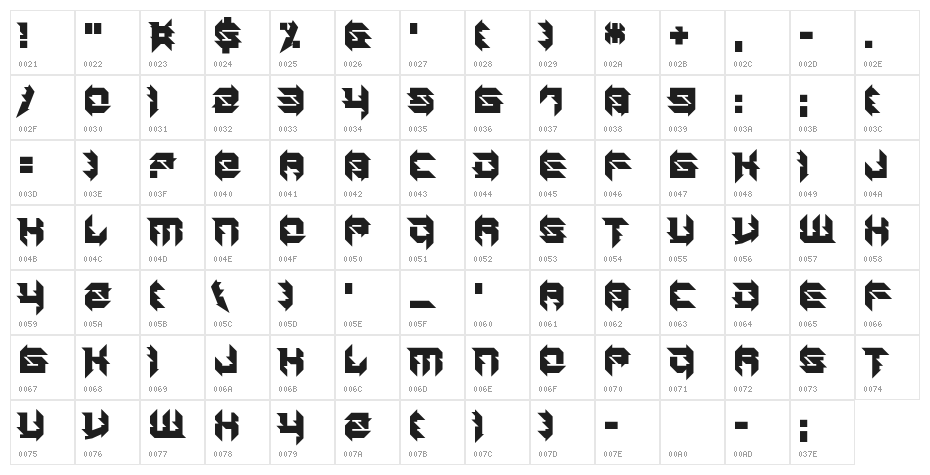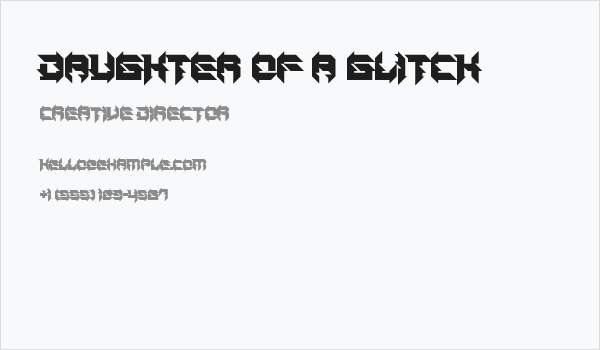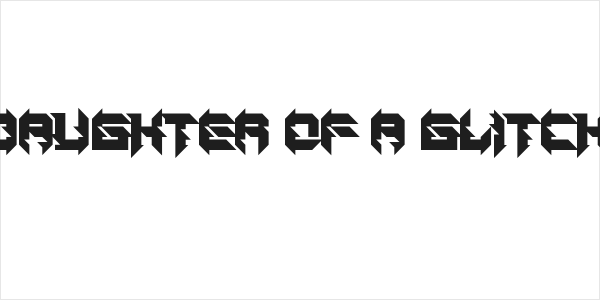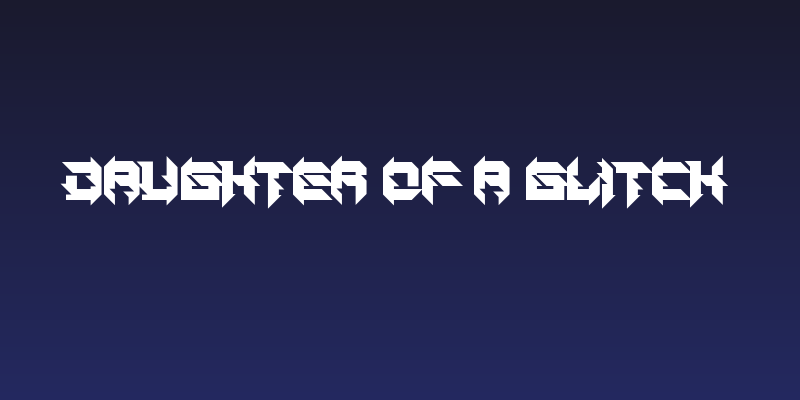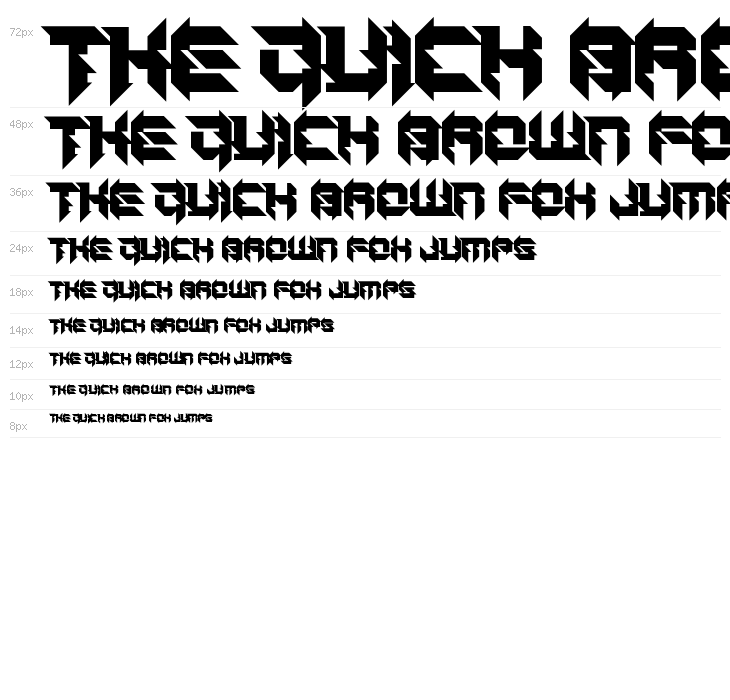
Daughter of a Glitch Font
Daughter of a Glitch Description
This font features a bold, angular design with a futuristic and digital aesthetic. The characters are constructed with sharp, geometric shapes that give a sense of movement and energy. The style is reminiscent of glitch art, with fragmented and pixelated elements that create a dynamic and edgy appearance. The uppercase and lowercase letters maintain a consistent style, while the numbers and special characters integrate seamlessly with the overall design. This font is highly stylized, making it ideal for projects that require a modern, tech-inspired look.
Proposed ProjectsIdeal for digital art, video game graphics, tech branding, and sci-fi themed projects.